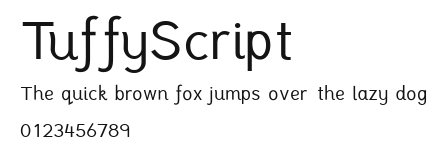
• Designer: Thatcher Ulrich
About TuffyScript.ttf
TuffyScript.ttf is a modern, elegant sans-serif font designed for ultimate readability and visual harmony. Perfect for branding, headlines, web design, and print materials.